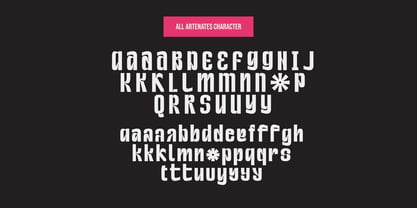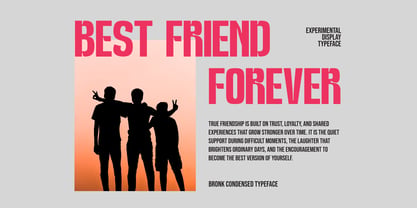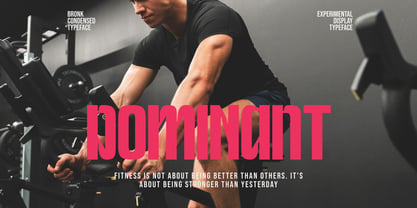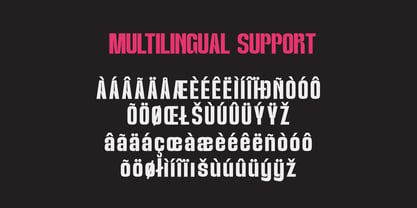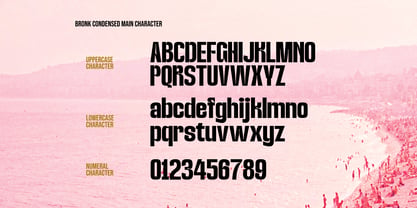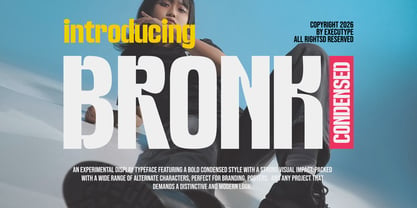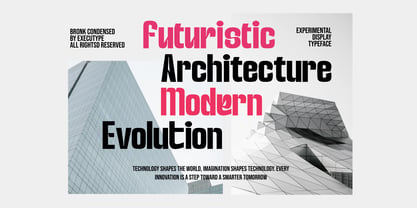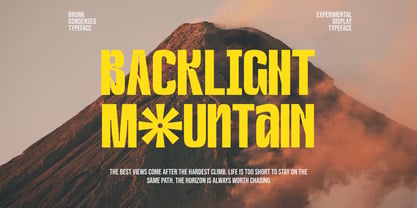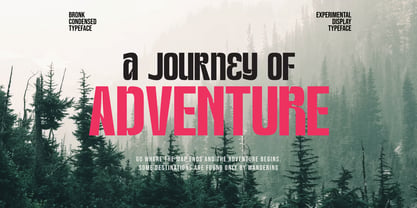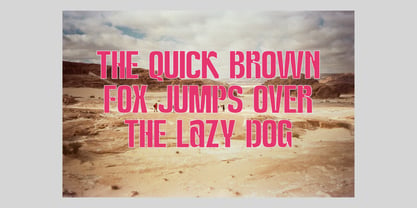
Bronk Condensed
by Tebaltipis Studio
The Bronk Condensed Font Family was designed by Dzulka Elfira and published by Tebaltipis Studio. Bronk Condensed contains 1 styles. More about this family
Introducing Bronk Condensed
Bronk is an experimental condensed display typeface featuring bold, heavy weights with a brutal and modern look. Designed for brands that demand attention.
With a wide range of alternate characters, Bronk is perfect for logos, headlines, posters, apparel, and any project that requires a distinctive and powerful look.
Perfect for:
Sports Branding, Gym & Fitness, Streetwear, Posters, YouTube Thumbnails, Editorial, Automotive.
Bronk speaks loud. Use it when you want to be DOMINANT.
Designers: Dzulka Elfira
Foundry: Tebaltipis Studio